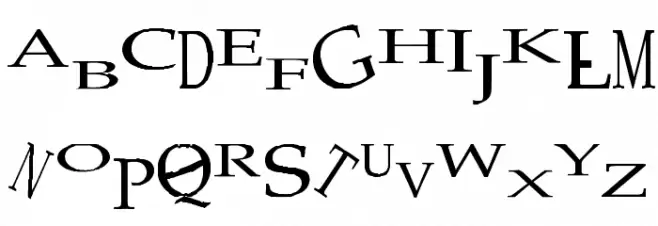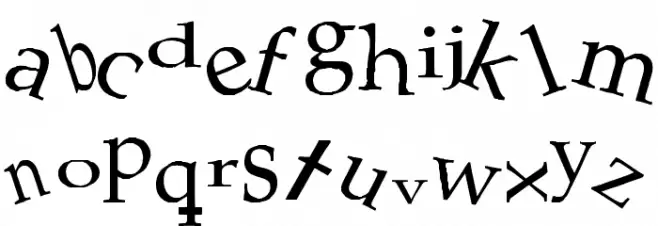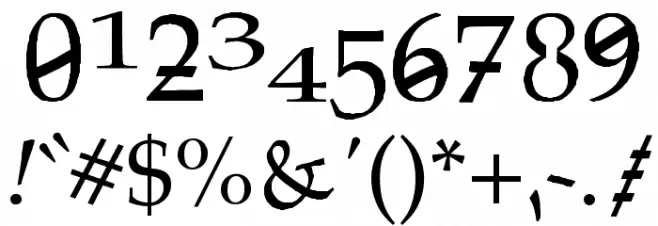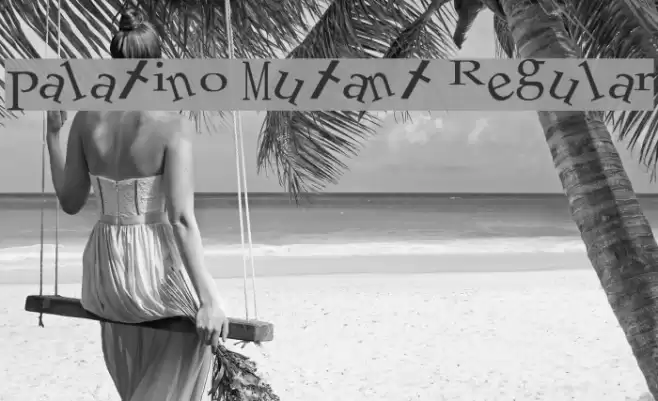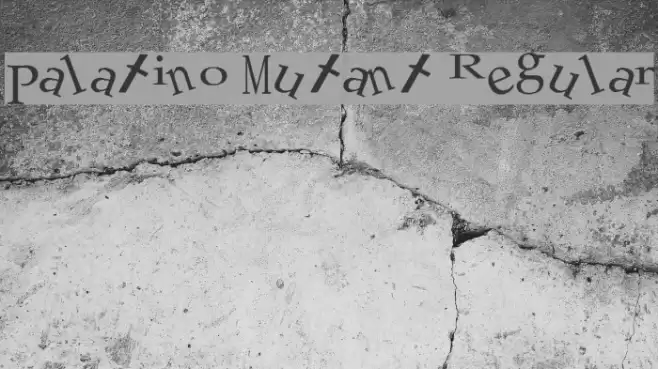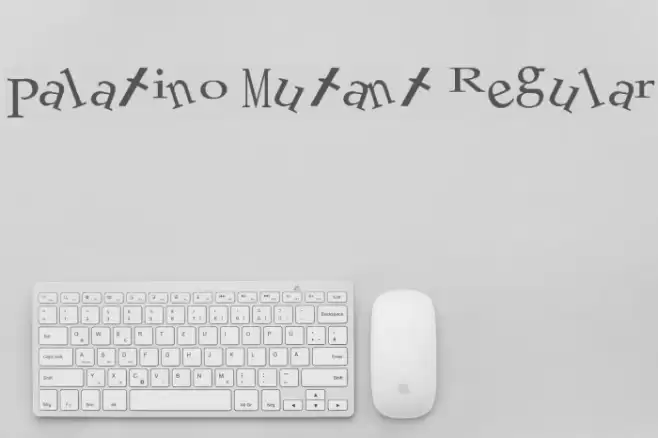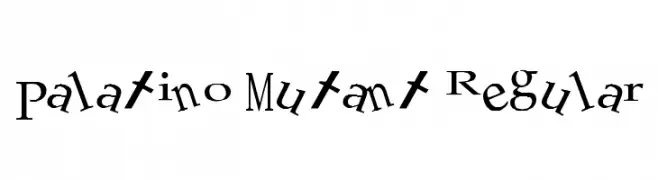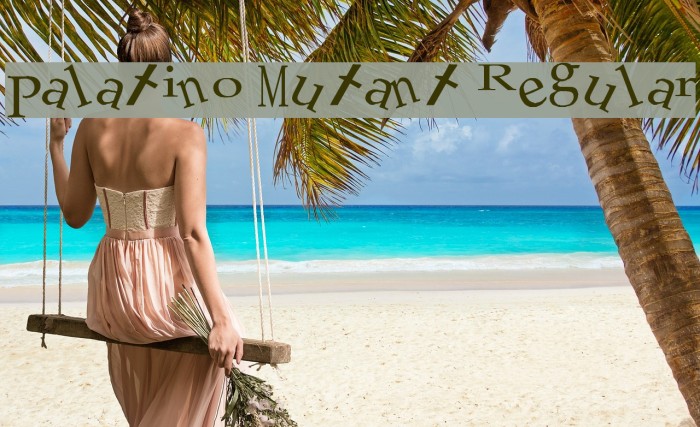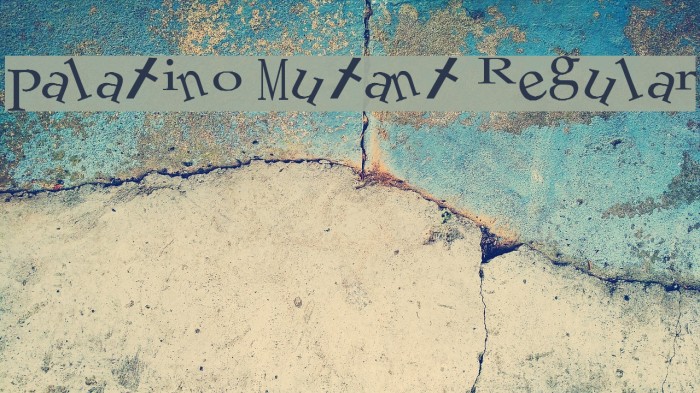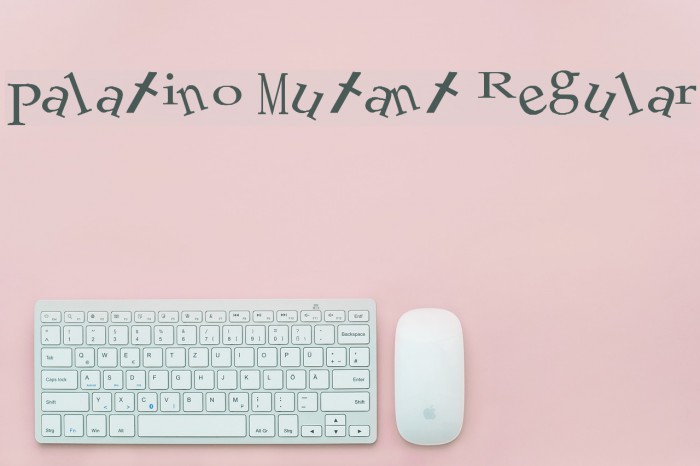
Palatino Mutant Regular
This font presents a quirky and playful style, characterized by its irregular and varied letterforms. Each character seems to have its own personality, with some letters leaning or twisting in unexpected ways. The strokes are uneven, adding to the whimsical and dynamic appearance. The font includes a full set of uppercase and lowercase letters, numbers, and a variety of special characters. The overall effect is both eye-catching and unconventional, making it suitable for creative and artistic projects.
A playful and quirky font with irregular, dynamic letterforms.
- Proposed Projects: Ideal for creative projects such as children's books, artistic posters, or unique branding materials.
- Overall Style: Decorative
- Use Case: Headlines, Logos, Artistic projects